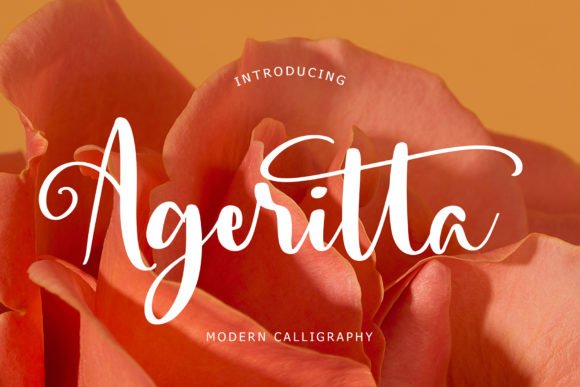
Introduction to Ageritta Font
Ageritta is a relaxed handwritten font.
Dainty and joyful, this font will be ideal for writing wedding invitations, cards or any other design that may need a romantic, personalized touch .
Key Features of Ageritta Font
Why Choose Ageritta Font?
Ageritta Font offers exceptional quality and versatility, making it a valuable addition to your design toolkit. Whether you’re creating for personal projects or commercial use, Ageritta Font delivers professional results.